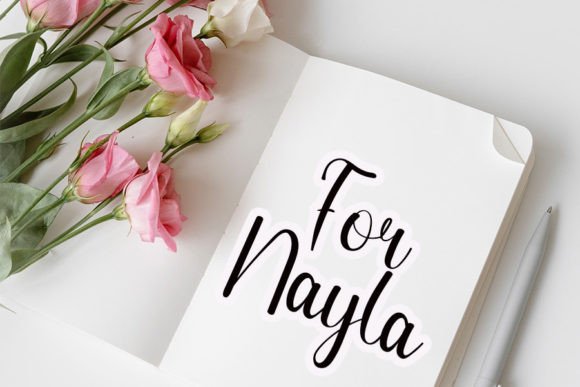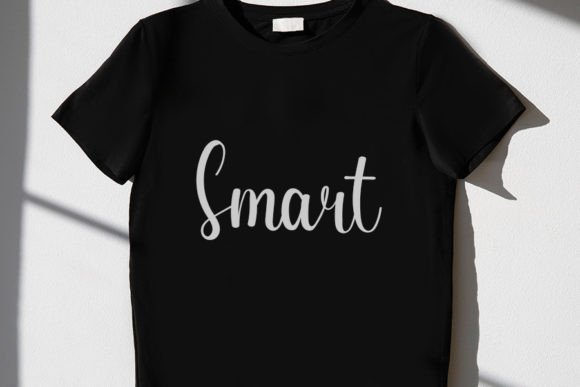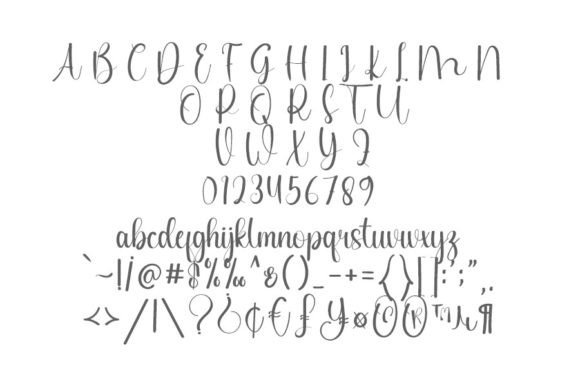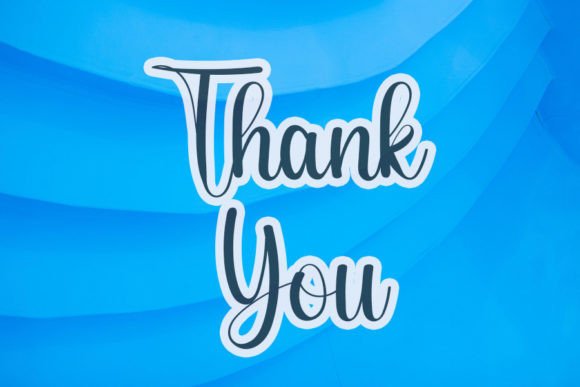
Introducing Happy Smile Font: Elevate Your Designs with a Modern Handwritten Twist
In the world of typography, a font can make or break the aesthetic of a project. For designers and crafters looking to add a personal touch to their work, the Happy Smile Font is a game-changer. This cool handwritten font boasts a modern vibe and spotless form, drawing inspiration from classic calligraphy to bring a sense of elegance and sophistication to any design.
The Perfect Balance: Not Too Thin, Not Too Thick
One of the standout features of the Happy Smile Font is its perfect balance. Unlike some fonts that can be too thin and fragile or too thick and overpowering, Happy Smile strikes a harmonious medium. This balanced approach ensures that your text remains clear and readable, without sacrificing style or flair. Whether you’re working on a logo, a poster, or a digital project, this font adapts seamlessly to your needs.
Variety and Versatility: The Key to Creative Freedom
Happy Smile Font is not just about aesthetics; it’s also about versatility. With a range of weights and styles, you can experiment with different looks and feels to match your project’s tone and personality. From subtle and understated to bold and expressive, this font’s varied strokes and connections allow you to tailor your text to fit your creative vision.
Inspired by Classic Calligraphy
The Happy Smile Font draws its inspiration from the timeless beauty of classic calligraphy. With its fluid strokes and elegant connections, this font brings a touch of tradition to modern design. Yet, its modern twist ensures that it remains fresh and relevant, perfect for projects that demand a contemporary edge.
Enhance Your Projects with Happy Smile
So, how can you use the Happy Smile Font to elevate your projects? Here are a few ideas to get you started:
- Branding and Logos: Create a lasting impression with a custom logo that showcases your brand’s personality.
- Posters and Flyers: Add a touch of elegance to your promotional materials and make them stand out.
- Digital Content: Use Happy Smile to add a personal touch to your blog posts, social media graphics, and website headers.
- Crafting and DIY: Perfect for crafters, this font can be used for making personalized cards, invitations, and other handmade projects.
Why Choose Happy Smile Font?
With so many fonts available, why choose Happy Smile? Here are a few compelling reasons:
- Unique Style: Stand out from the crowd with a font that combines modernity with classic charm.
- Ease of Use: Happy Smile is designed to be user-friendly, making it easy to integrate into your projects.
- High Versatility: Suitable for a wide range of applications, from digital design to print and crafting.
The Happy Smile Font is more than just a typeface; it’s a tool for creative expression. Its modern vibe, balanced design, and calligraphic inspiration make it an excellent choice for designers and crafters looking to add a personal touch to their work. Whether you’re aiming for elegance, playfulness, or a mix of both, Happy Smile is sure to enhance the beauty of your projects and leave a lasting impression on your audience.